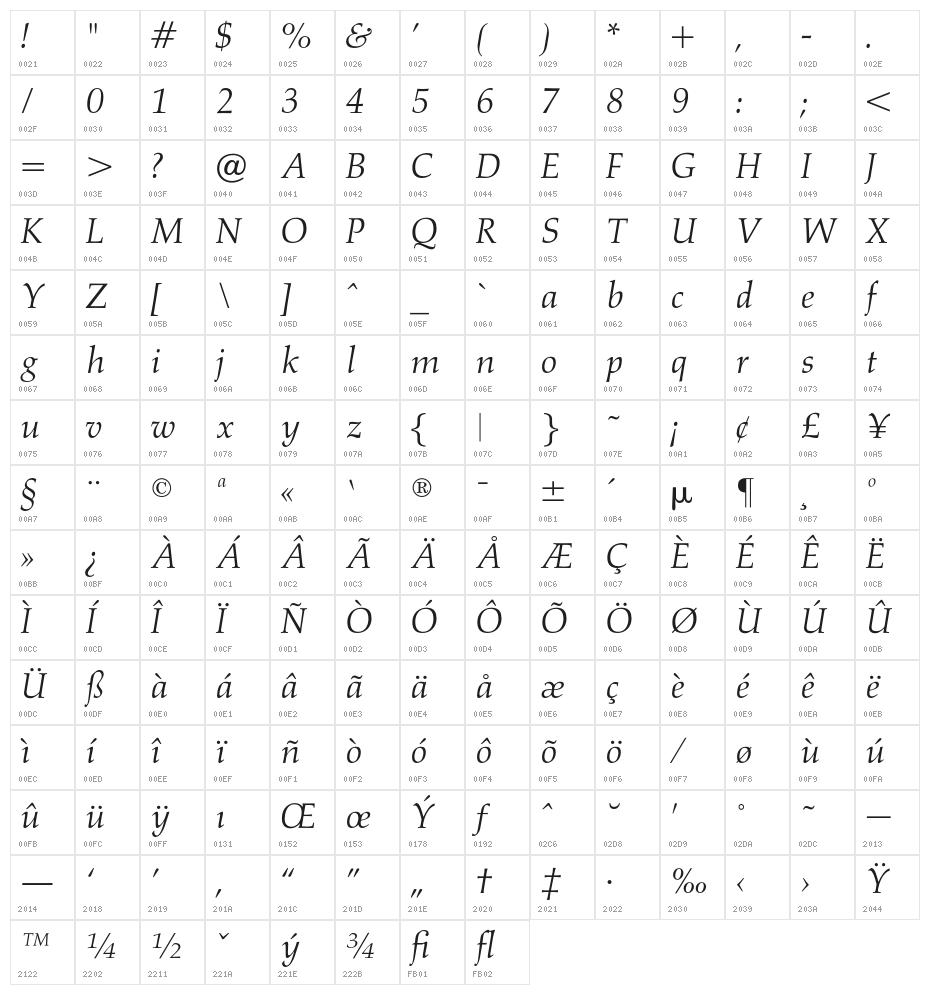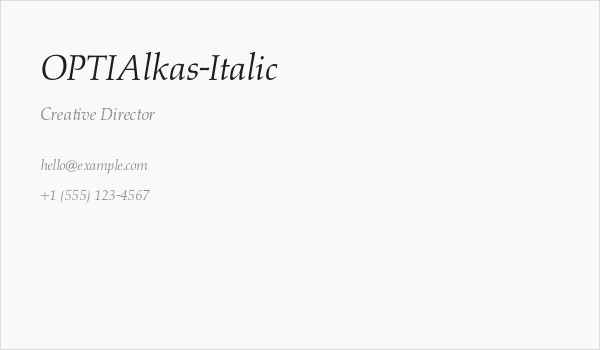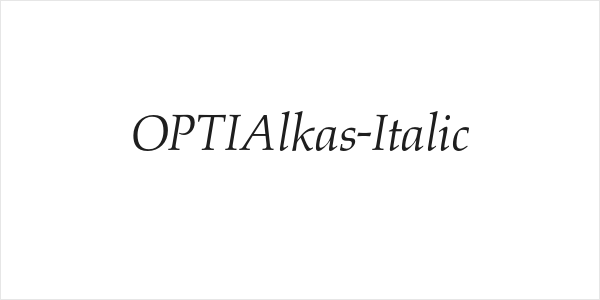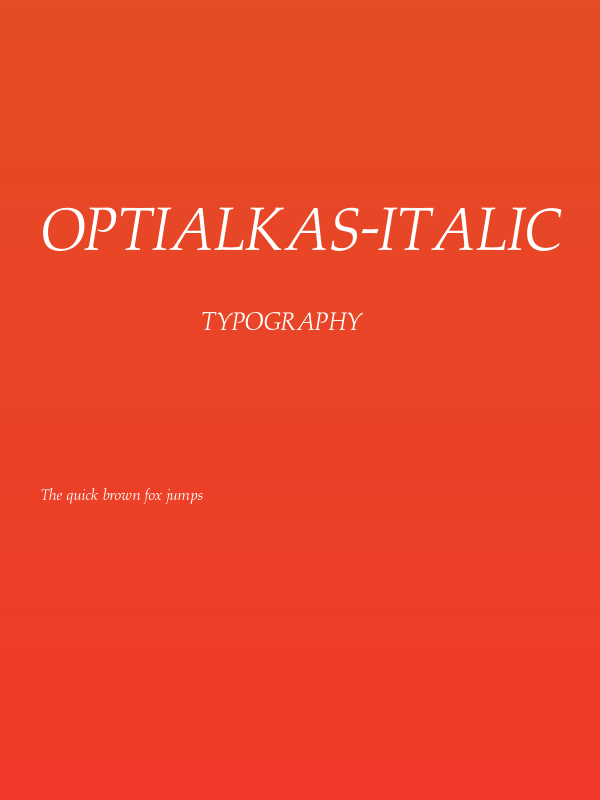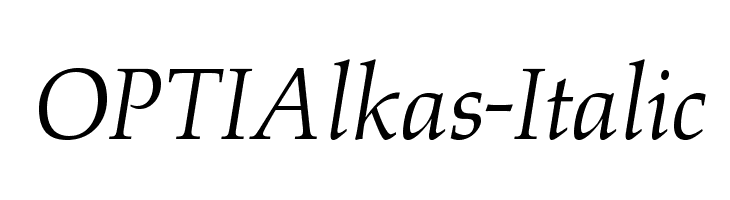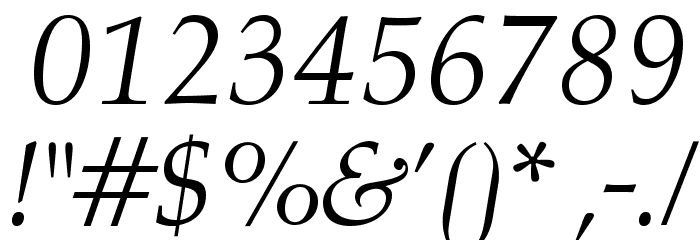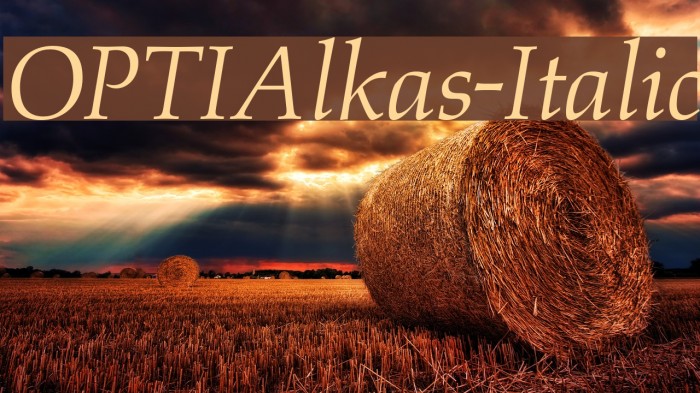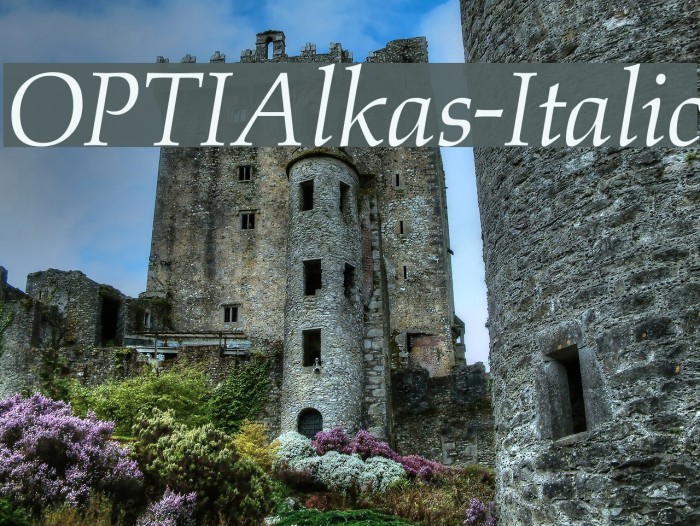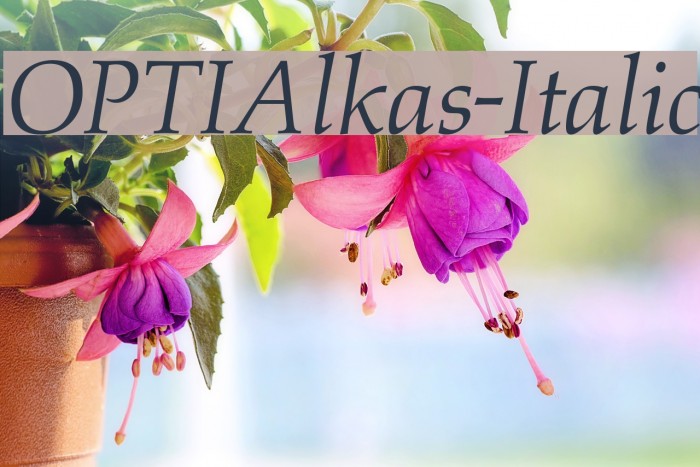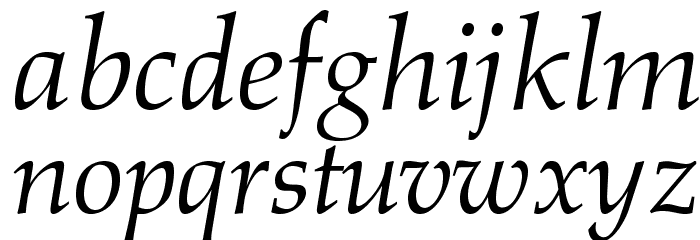
OPTIAlkas-Italic Font
OPTIAlkas-Italic Description
This elegant typeface features a classic italic style with a refined and sophisticated appearance. The letters are gracefully slanted, adding a sense of motion and fluidity. The strokes are moderately contrasted, with thin lines and slightly thicker downstrokes, giving it a balanced and harmonious look. The serifs are subtle and well-defined, enhancing readability while maintaining a stylish flair. The overall design is timeless, making it suitable for a variety of applications where elegance and clarity are desired.
| Use Case | Headlines, Body text, Logos |
| Proposed Projects | Ideal for wedding invitations, formal documents, elegant branding, and editorial design. |